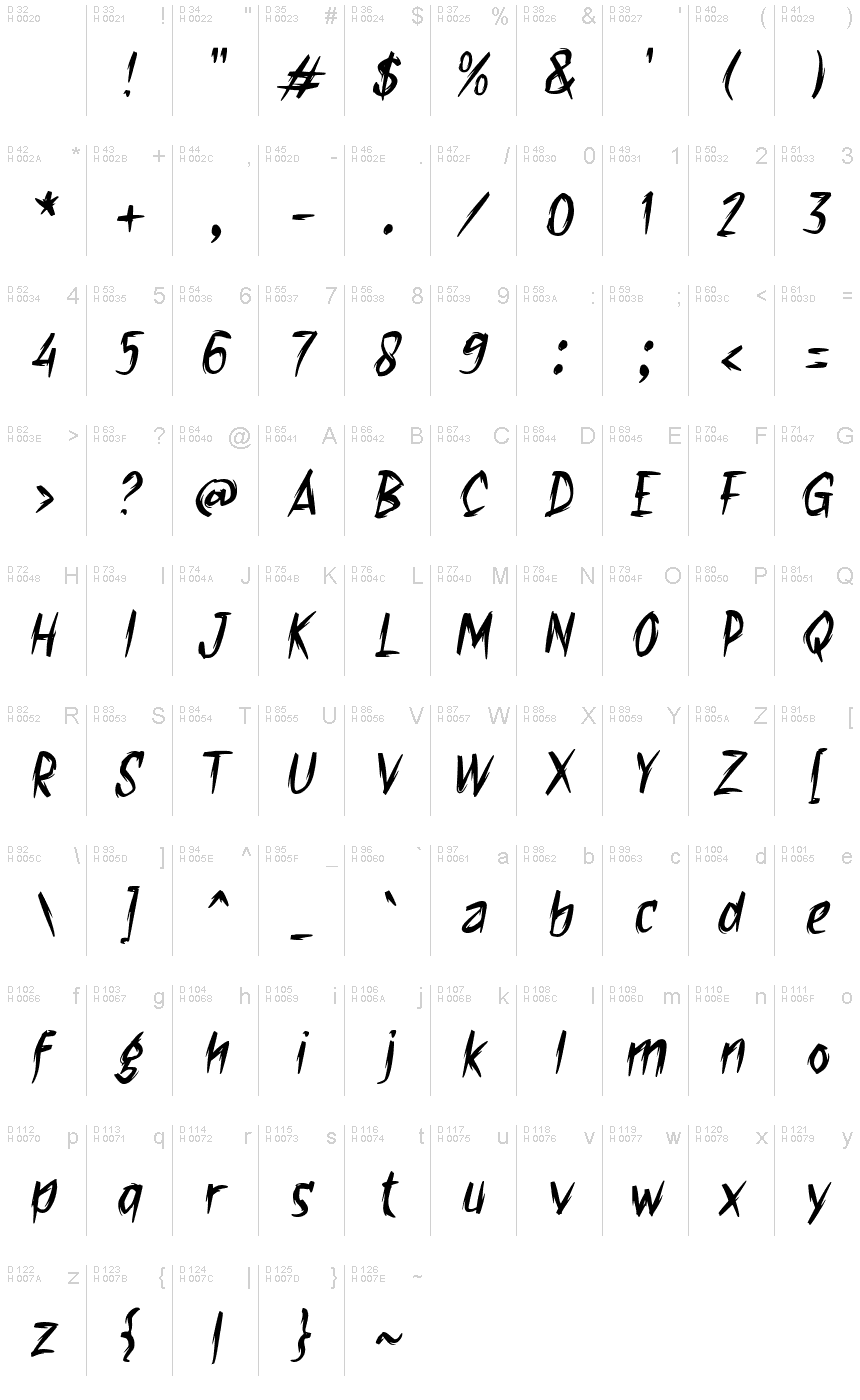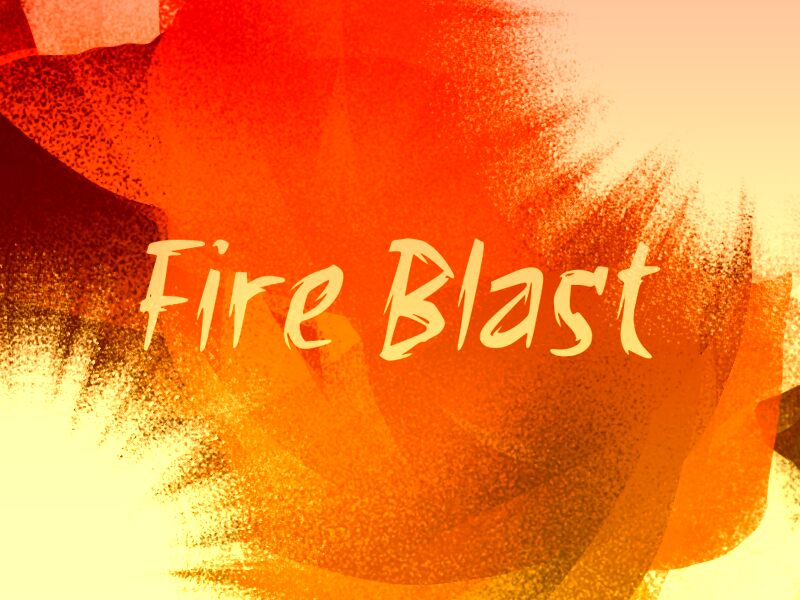
Fire Blast
Fire Blast emerges as a display font that captures the essence of energy and movement. Designed by wep, its decorative style embodies a sense of dynamism and flair, making it an outstanding choice for projects that demand attention. The semi-light weight combined with a semi-condensed width creates an aesthetic balance, striking enough to stand out yet refined enough to maintain readability.
With its vigorous strokes and artful swashes, Fire Blast offers visual interest that can elevate designs from mundane to memorable. It's particularly well-suited for titles, logos, and any creative endeavor where a touch of excitement is desired. Whether it's for print media or digital graphics, Fire Blast is versatile enough to infuse your project with the boldness it warrants without overwhelming the composition.